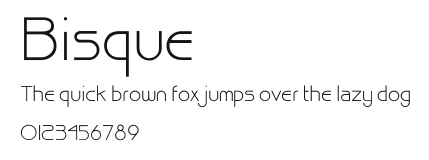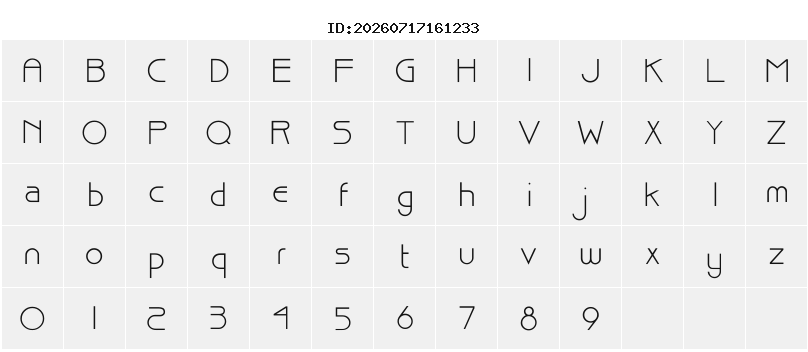
About Bisque.ttf
Bisque.ttf is a modern, elegant sans-serif font designed for ultimate readability and visual harmony. Perfect for branding, headlines, web design, and print materials.